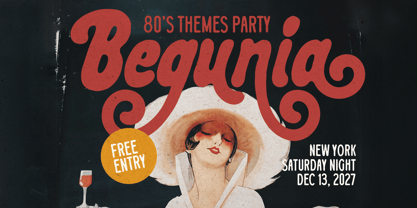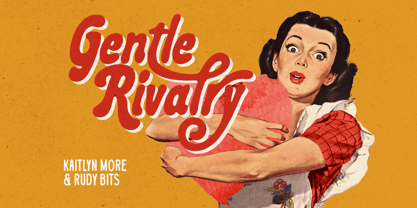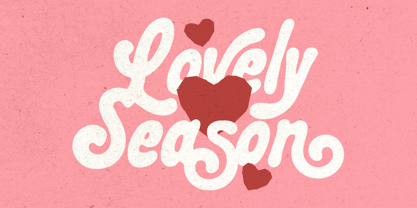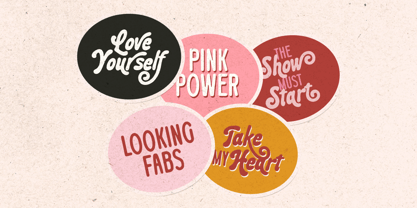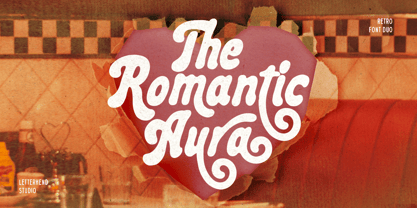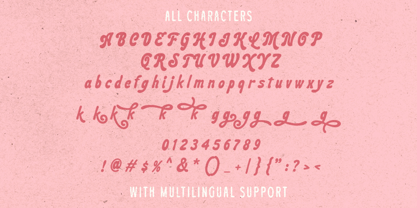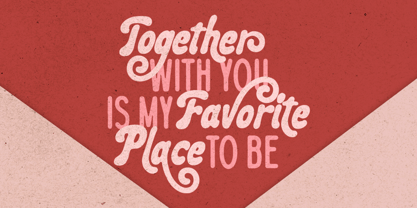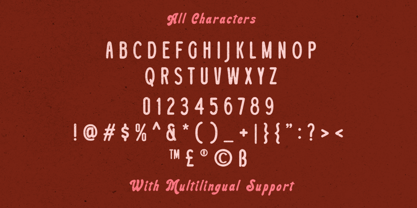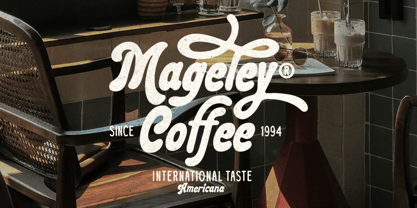
Romantic Aura
von Letterhend
Die Schriftfamilie Romantic Aura wurde von Hendry Juanda entworfen und von Letterhend veröffentlicht. Romantic Aura enthält 2 Stile und Familienpaketoptionen. Mehr über diese Familie
This Romantic Aura is a retro font duo with bold curves, soft script flow, and a cozy vintage feel that instantly brings warmth and charm. the lettering looks playful yet balanced, mixing expressive script with a supportive style that feels nostalgic and friendly. the vibe is romantic, retro, and cool in a laid-back way, making it easy to use for designs that want to feel heartfelt without looking old-fashioned. Features : Uppercase & lowercase Numbers and punctuation Alternates & Ligatures Multilingual Support PUA encoded
Designer: Hendry Juanda
Foundry: Letterhend